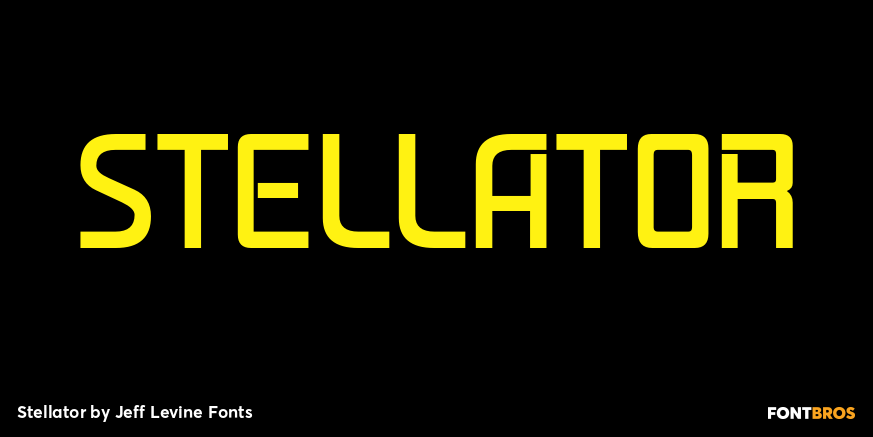
Stellator
The future is now with Stellator JNL!
With all the clean lines and styling one would expect of a futuristic or space age font, your design projects will have a simple, yet effective type design that conveys modern technology and interplanetary travel.